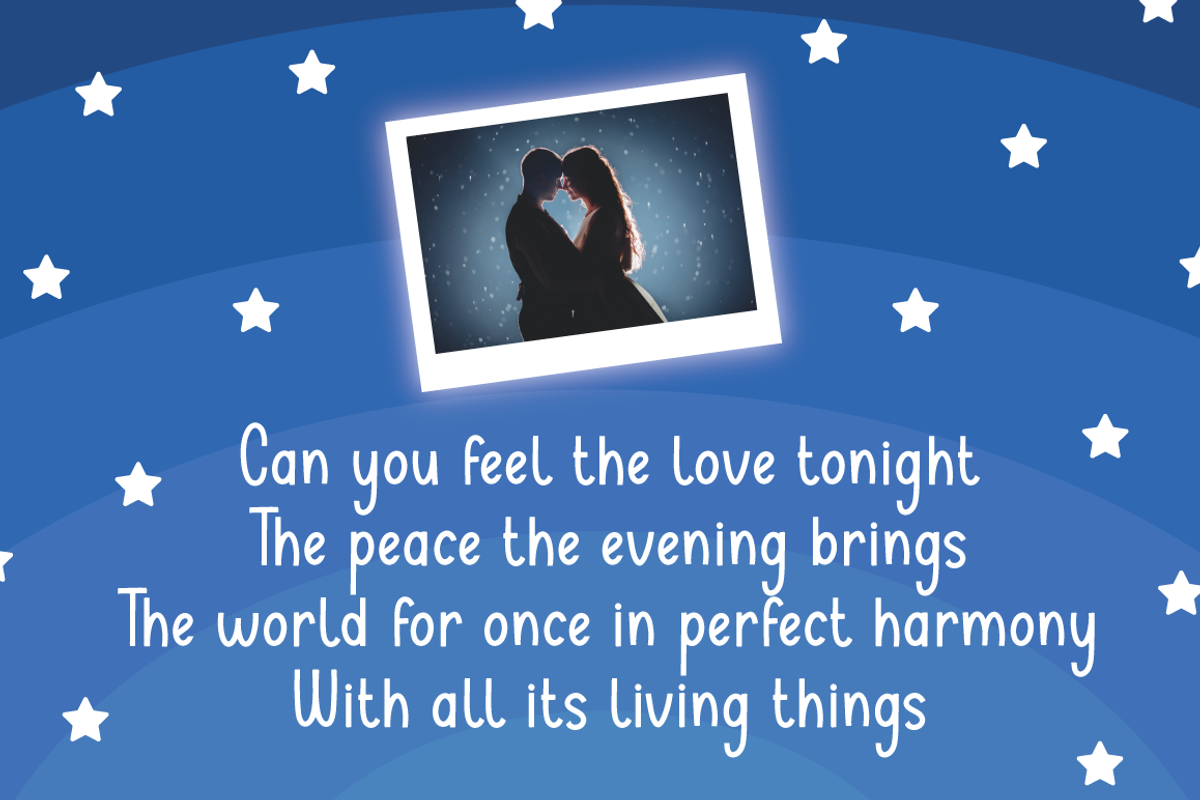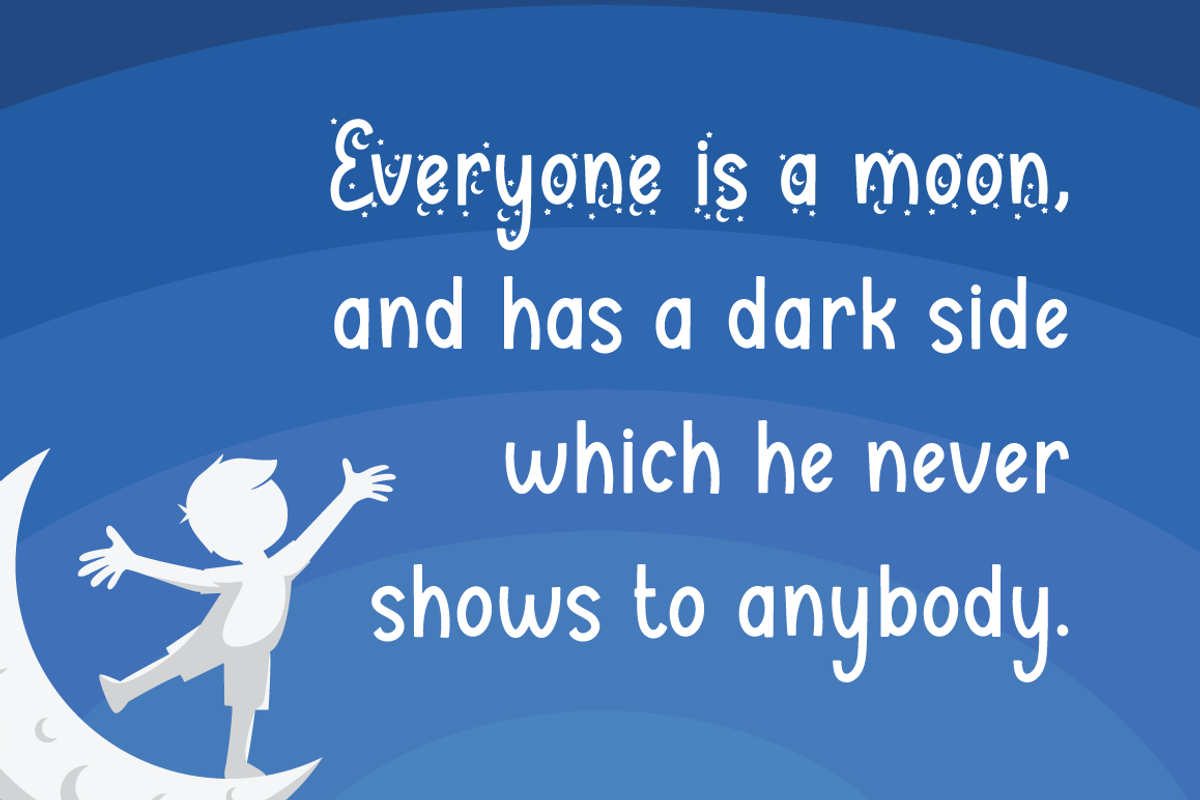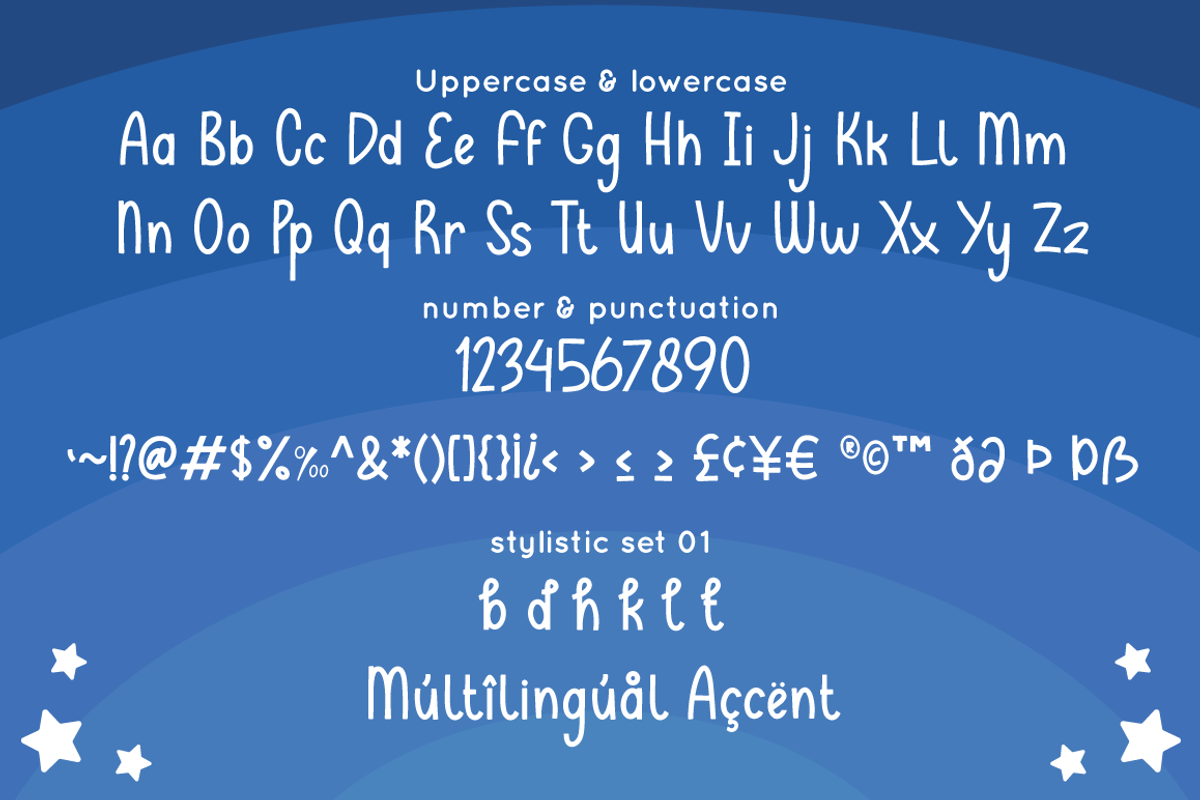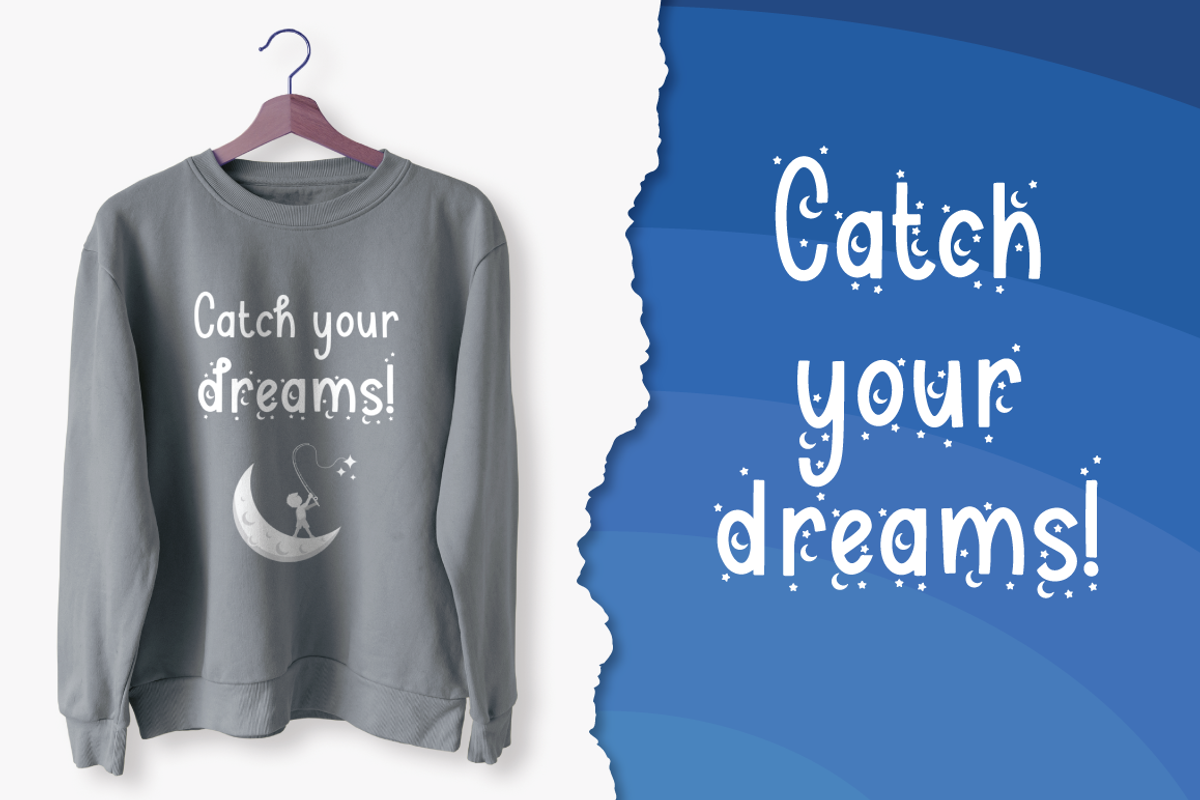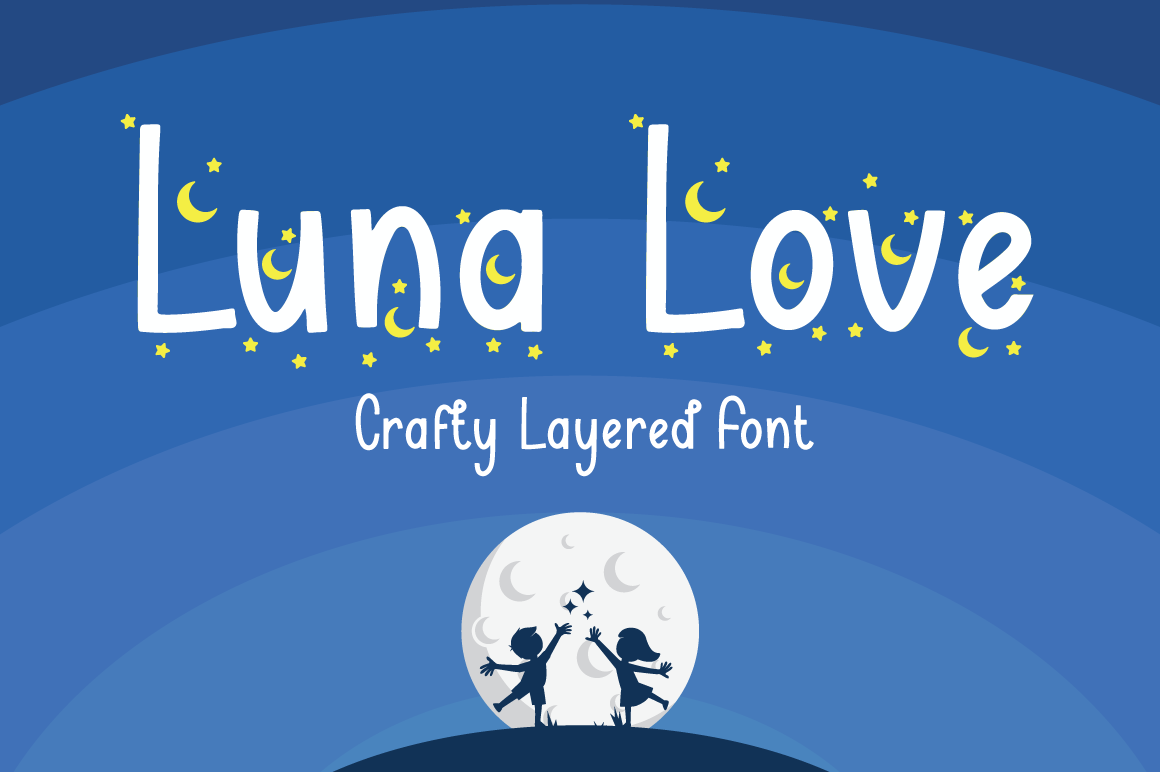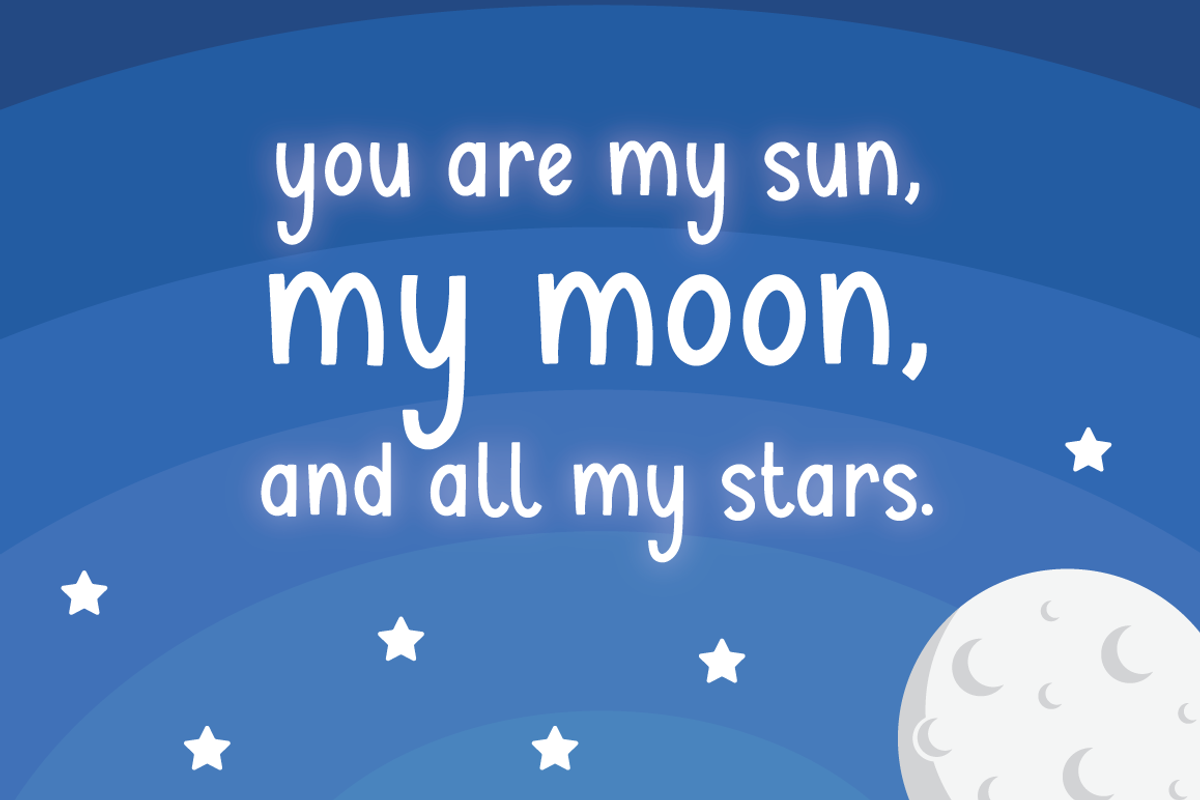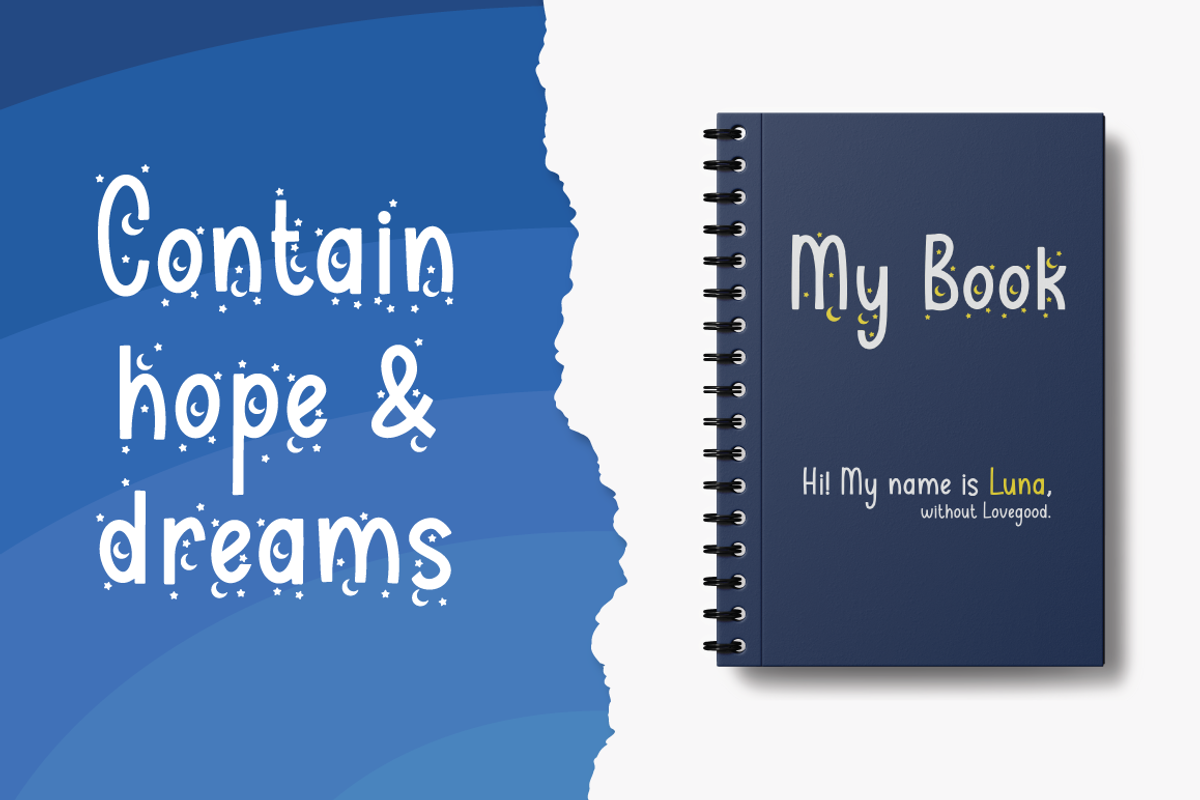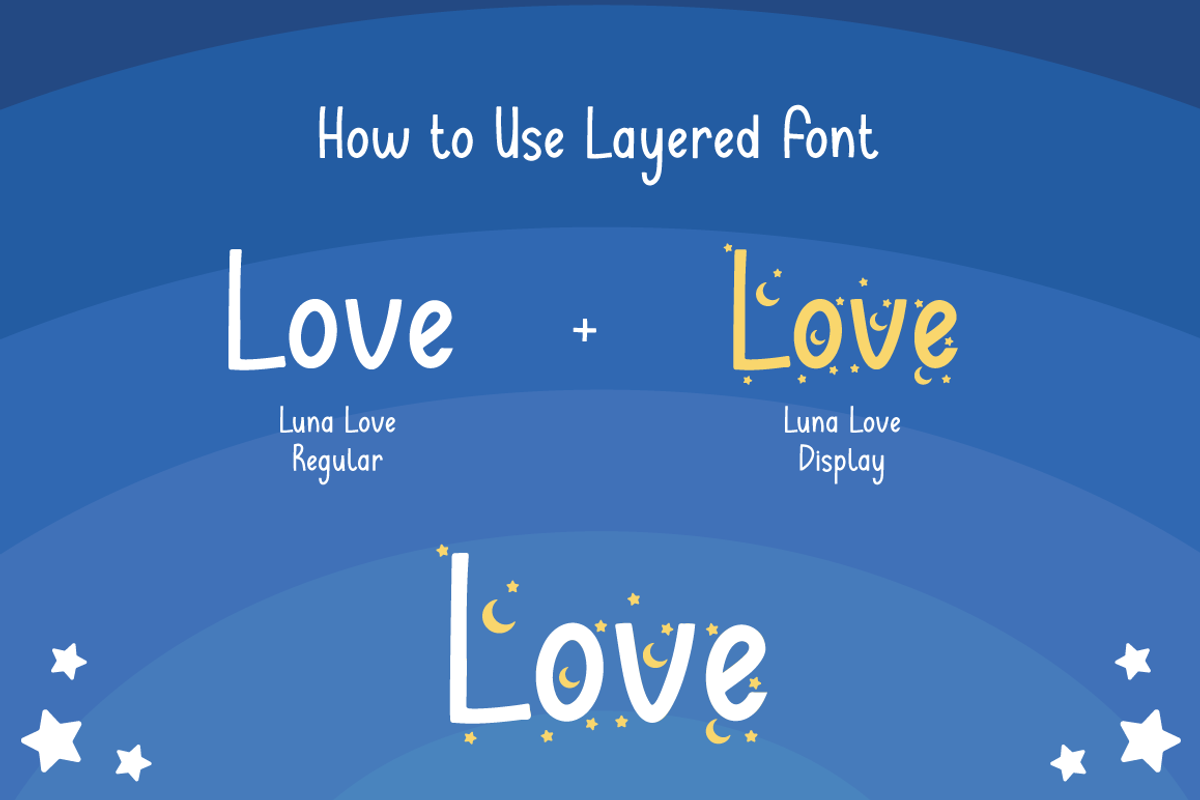
Luna Love - Layered Crafty Font
Introducing Luna love - Inspired by Star on the space & cute display, Luna love is handwritten font cursive that perfect for children product. come with star layered font, make combination of this font to create amazing design!
Two style Font: regular & Display
Luna love is perfect for children product, branding, logo, invitation, stationery, wedding, product packaging, merchandise, monogram, blog design, game titles, cute style design, Book/Cover Title and more.
- stylistic set